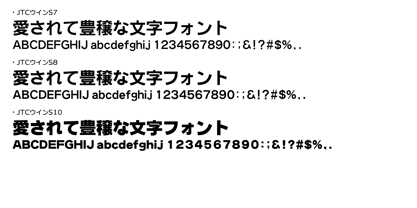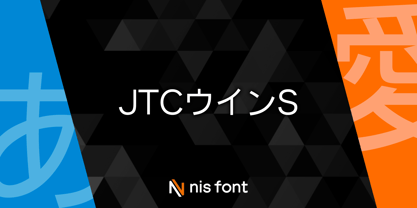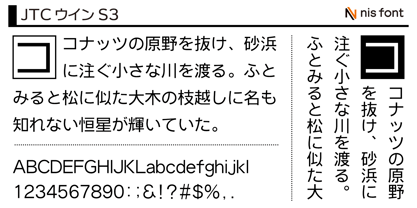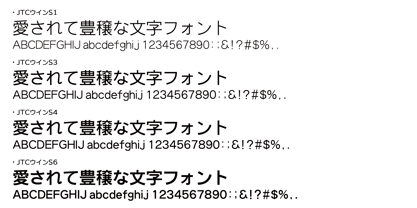
OT-NIS_S
by NIS Fonts
The OT-NIS_S Font Family was designed by and published by NIS Fonts. OT-NIS_S contains 7 styles and family package options. More about this family
The "OT-NIS_S Series" is Nisfont's fundamental square Gothic typeface. This product is part of a family font series with seven weight variations, ranging from S1 to S10. The thinner weights convey a sense of cleanliness, freshness, and a smart vibe, while the heavier weights evoke a sturdy, serious, and dependable image. The kana characters are designed with a rounded fullness, prominently seen, for instance, in characters like "り." This is a modern square Gothic typeface specifically designed for digital printing. Supports the JIS2004 character set.